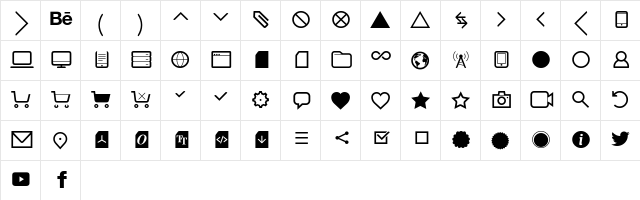
Aquawax Pro Pictograms Regular
| Foundry | Francesco Canovaro |
| Designer | Francesco Canovaro |
Design Context for Aquawax Pro Pictograms Typeface
Aquawax Pro Pictograms offers clean, dependable letterforms without strong stylistic allegiance, making it a practical choice for designers who need flexibility.